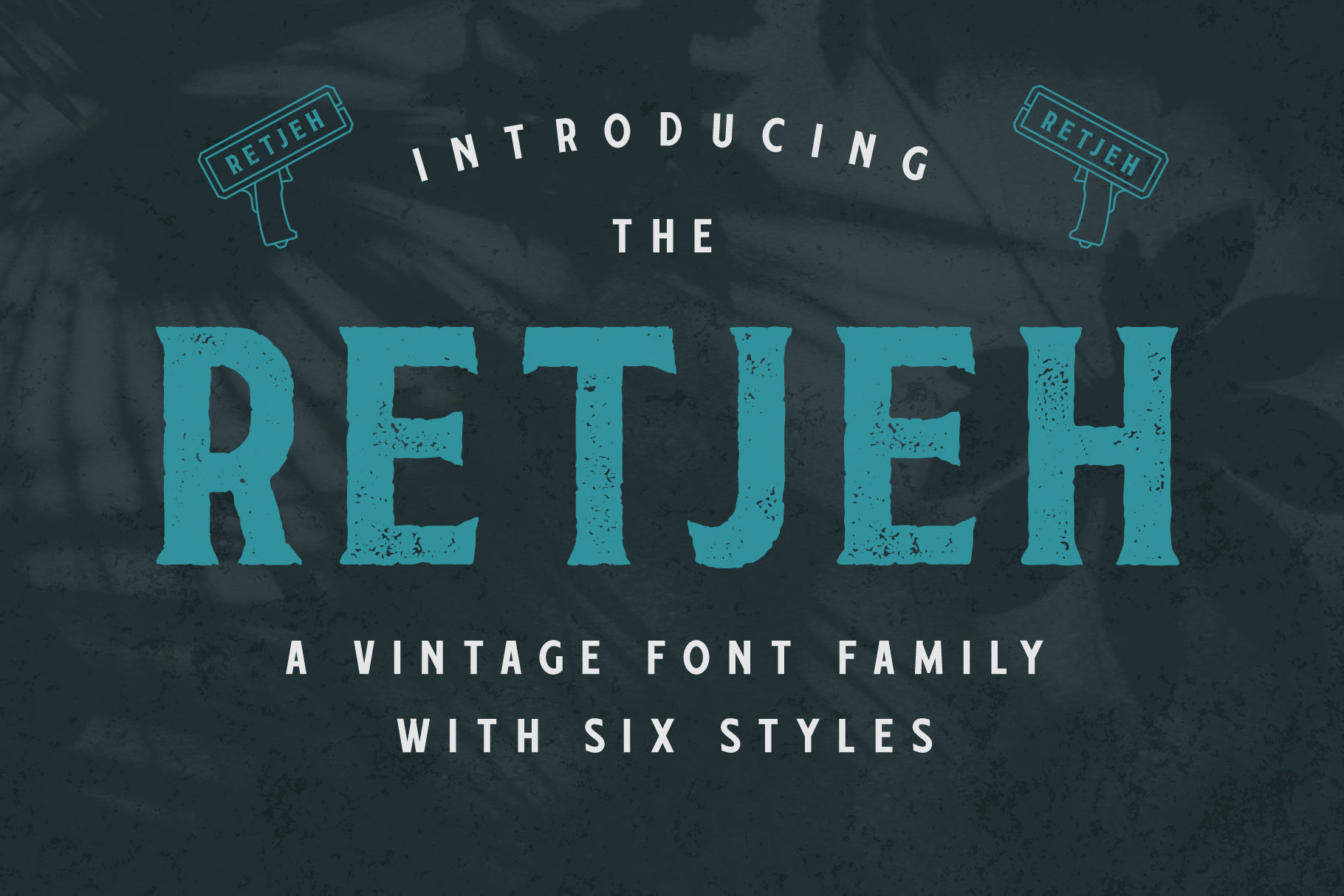
Retjeh Vintage Font Family
Retjeh is an all uppercase vintage font which is inspired by western lettering from the industrial and good old past, but it still has a strong modern appearance. It's allows versatile design options and works perfectly for headlines, logos, posters, packaging, T-shirts, postcards and much more.